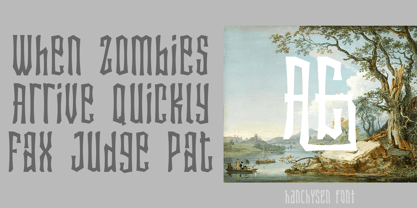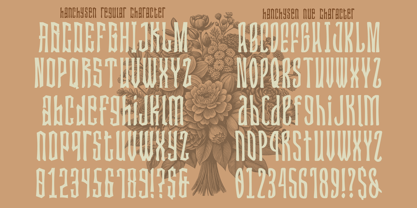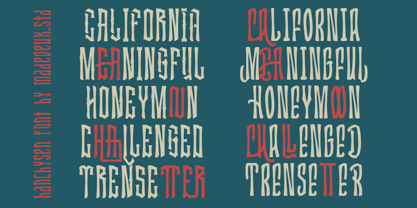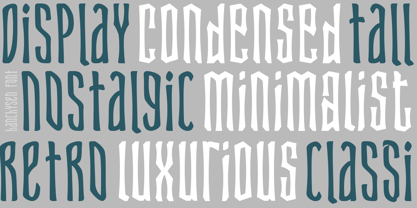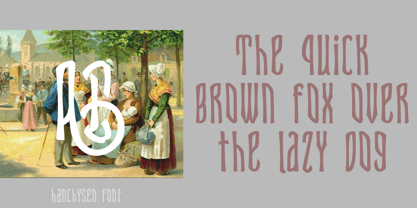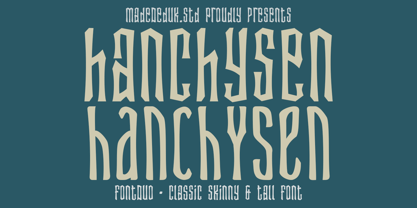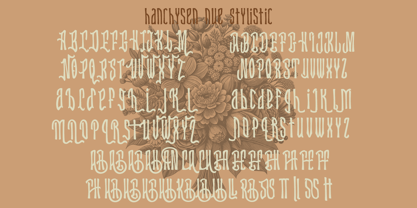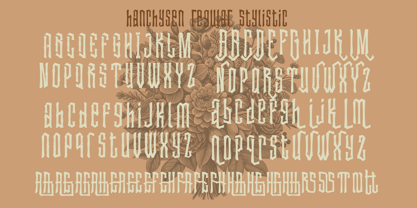
Hanchysen
by madeDeduk
The Hanchysen Font Family was designed by madededuk and published by madeDeduk. Hanchysen contains 2 styles and family package options. More about this family
Hanchysen is a classic, slender font duo characterized by its striking verticality and high-contrast strokes, making it perfect for high-fashion headline layouts. This sleek, ultra-condensed typeface is designed for exceptional display work, ideal for logos, contemporary posters, album art, and lifestyle-driven branding. Whether you're producing digital content or printed materials, Hanchysen enhances your projects with its elegant and modern appeal.
Designers: madededuk
Foundry: madeDeduk